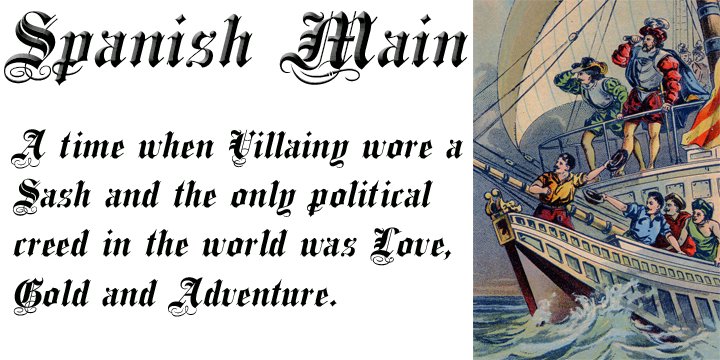
Spanish Main is a revival of an old MacKeller Smiths & Jordan font named Sloping Black. Like most foundries MacKeller Smiths & Jordan doesn't display all the letters of the fonts in their specimen books so it took a little more time to find the complete character set for this old beautiful classic font.
New in this version is the addition of a Greek character set which is experimental as you normally don't see Old English style fonts include a Greek alphabet.